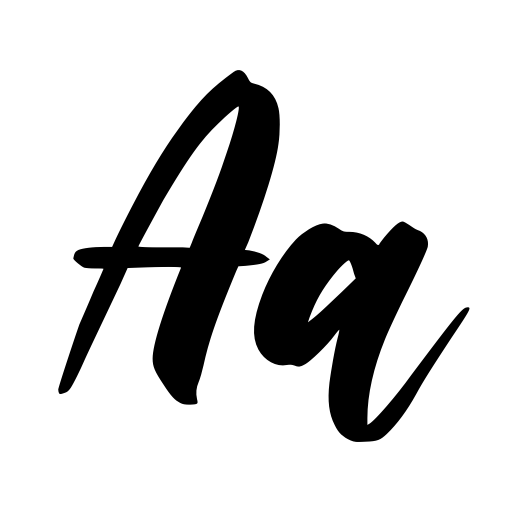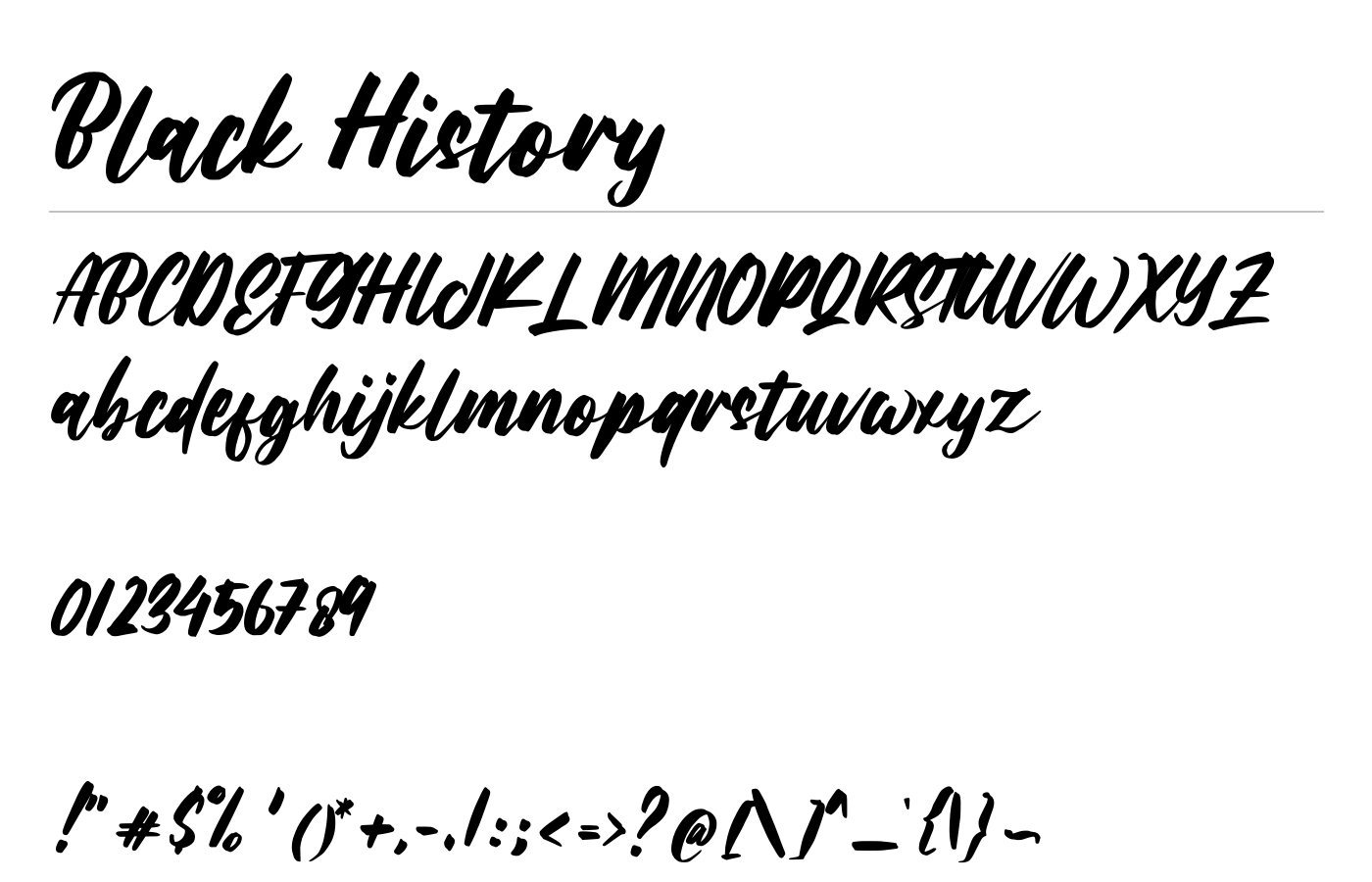
Black History Font is a bold, energetic script typeface with a hand-painted feel, featuring smooth, flowing strokes and a lively, informal style. Its moderately high x-height and slightly condensed letterforms make it eye-catching and dynamic, perfect for creating impactful headlines, logos, and creative branding with a personal, expressive touch. This font adds a sense of warmth and vibrancy to designs, making it ideal for projects that want to convey authenticity and spirited creativity.
Black History Font
About Black History Font
| Font family | Black History Font |
| Designer | Fatmawati |